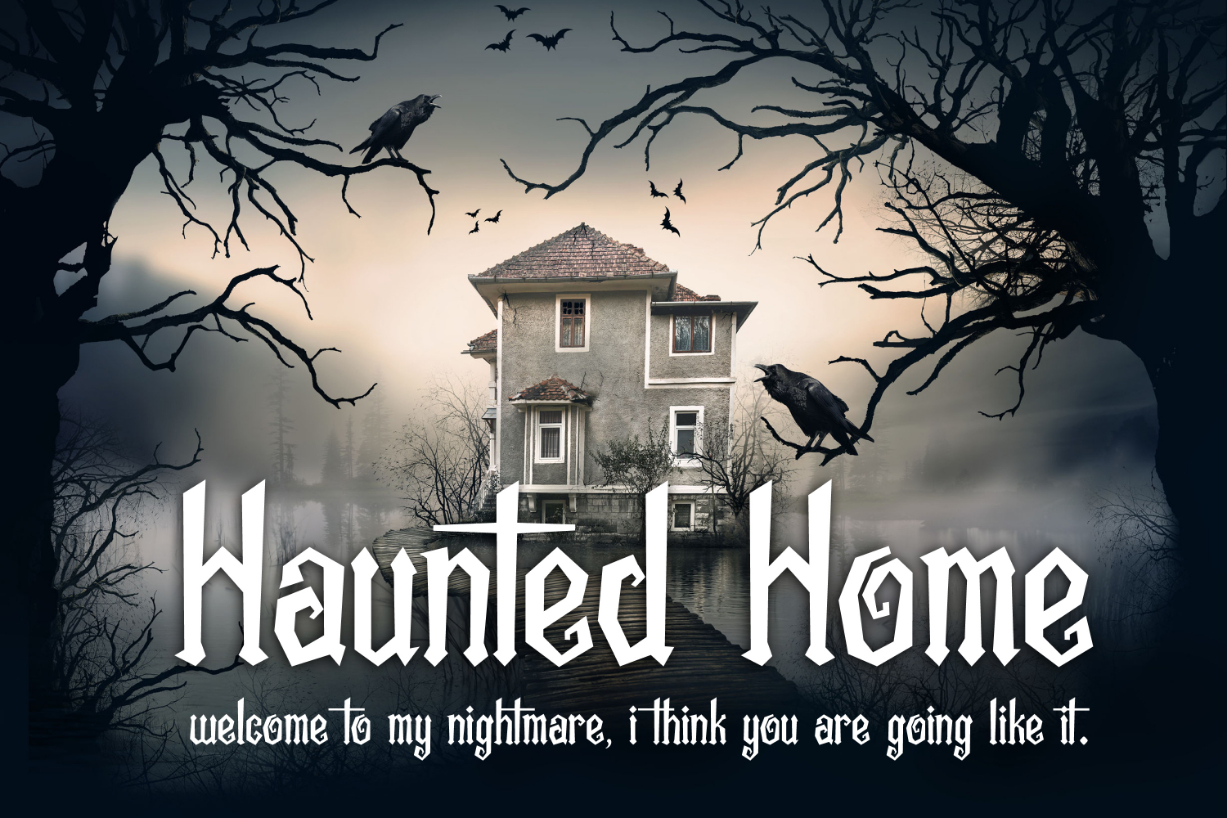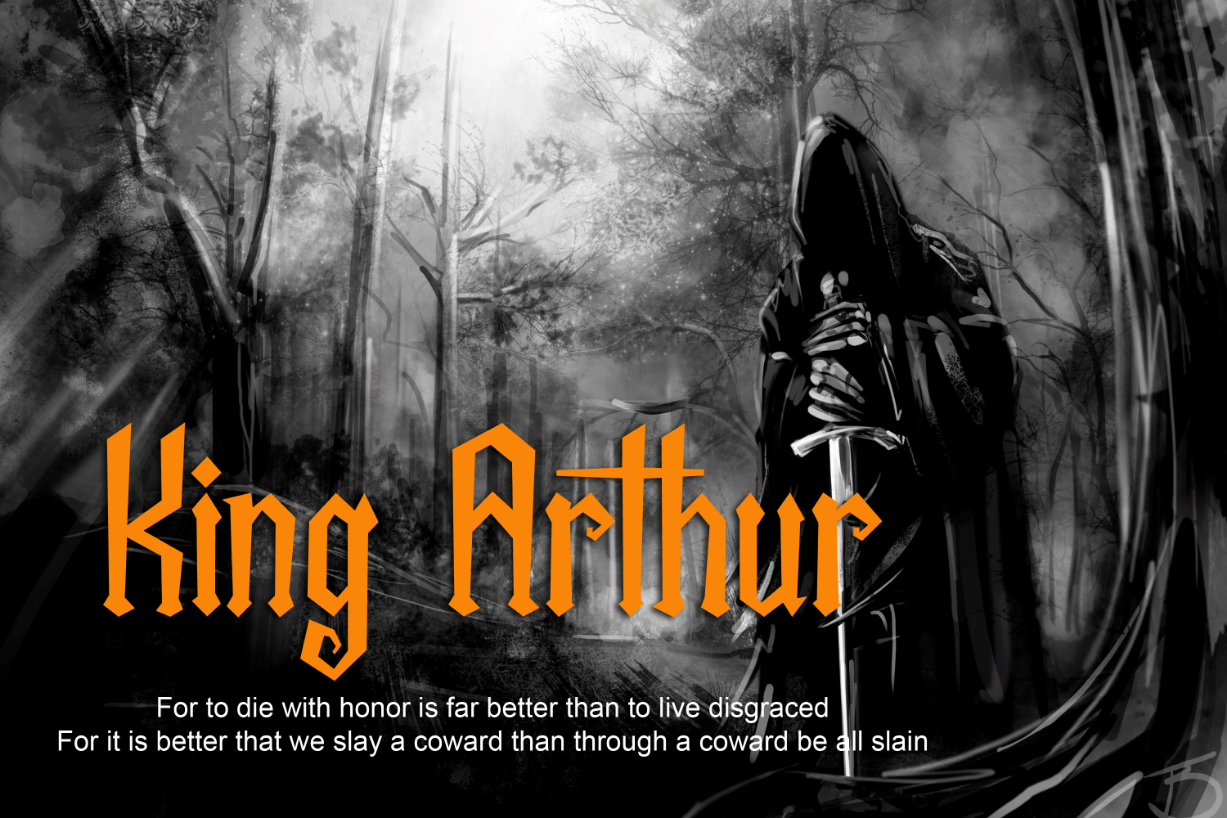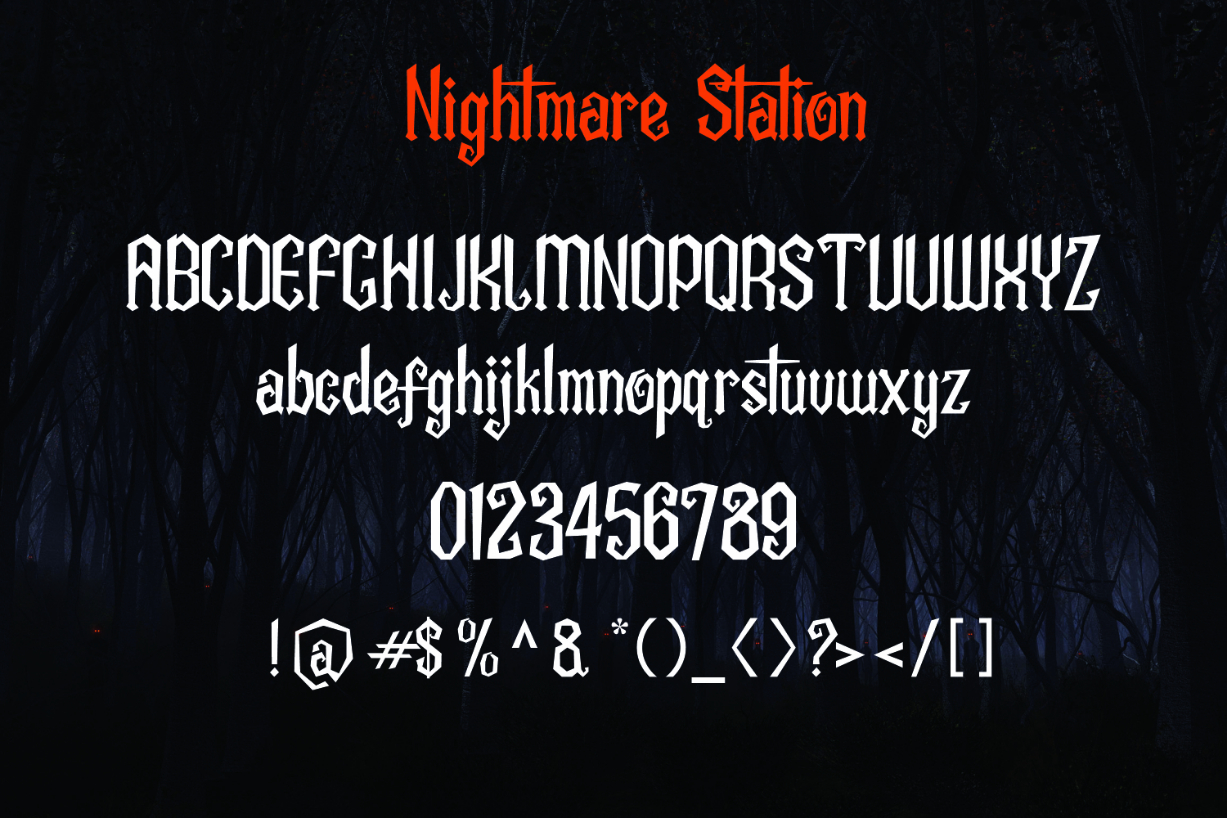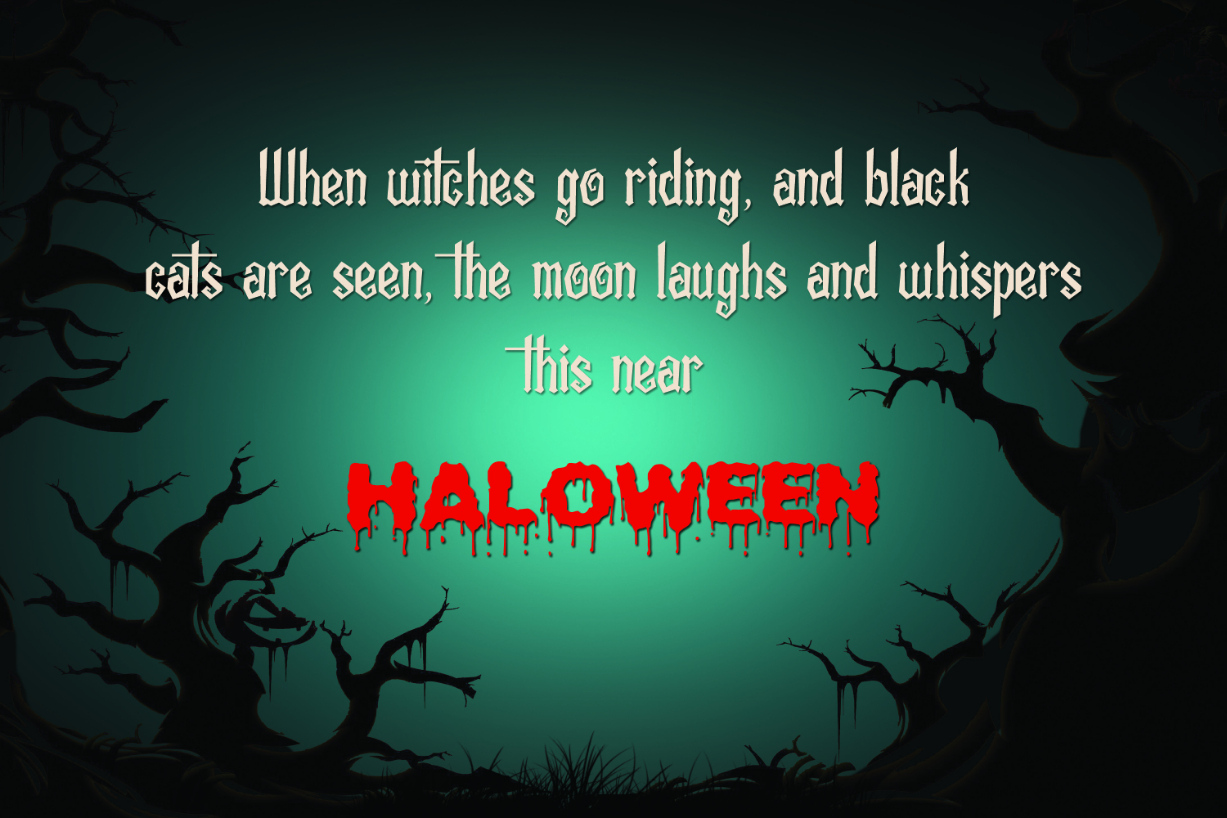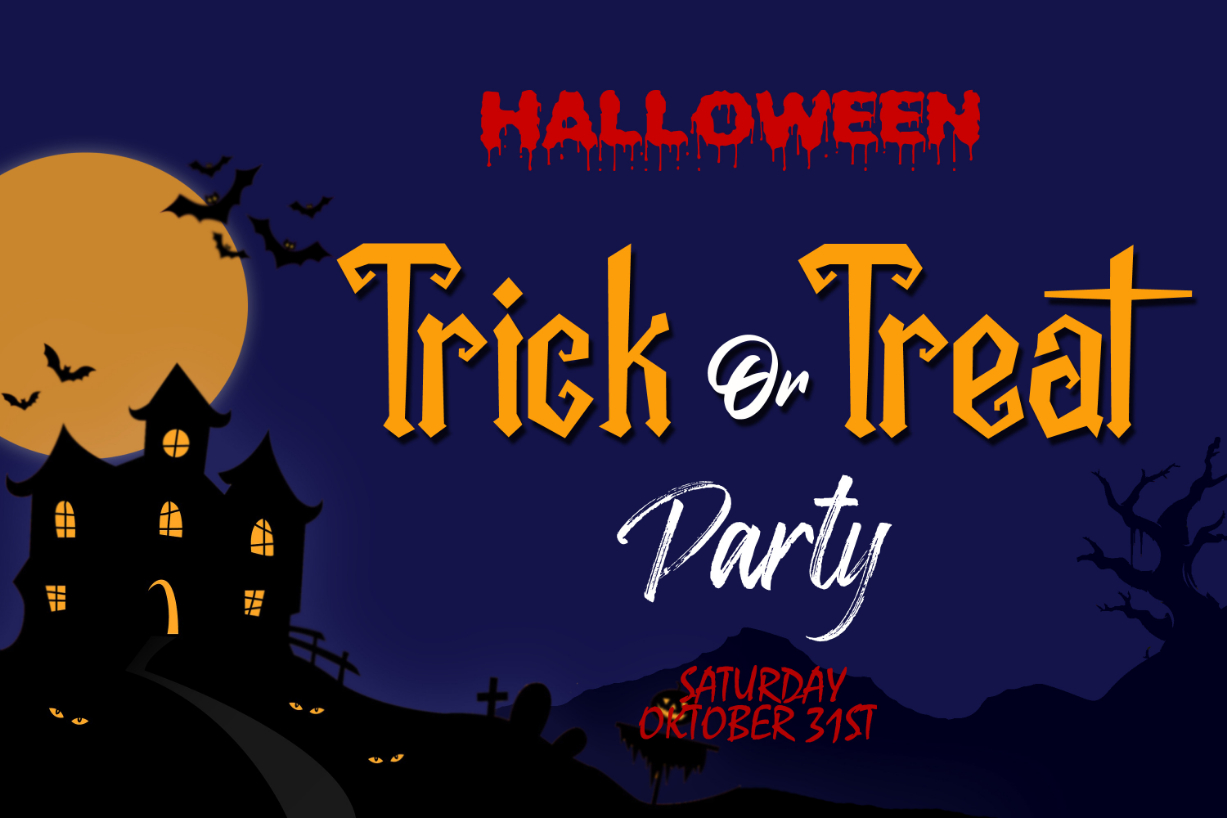
Nightmare Station Font
About Nightmare Station Font
Nightmare Station is a spooky blackletter font, perfect for creative projects that require a dramatic and solemn look! The characters are modern and cool, suitable for a wide range of projects and crafty ideas.